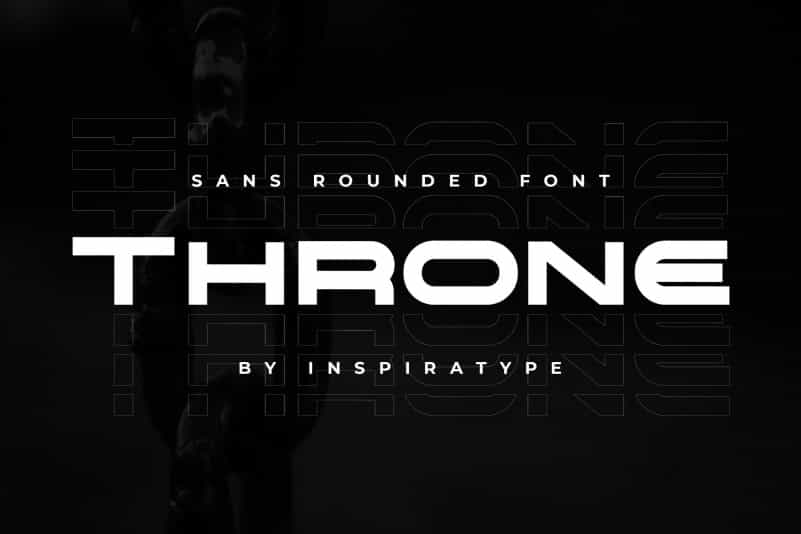
“Throne” is a font display that is created by hand, inspired by the classic posters. Consists of both upper and lower case letters, numerals, punctuations in addition to other variations on each character.